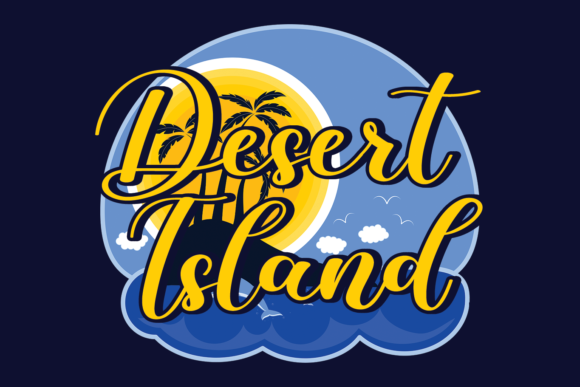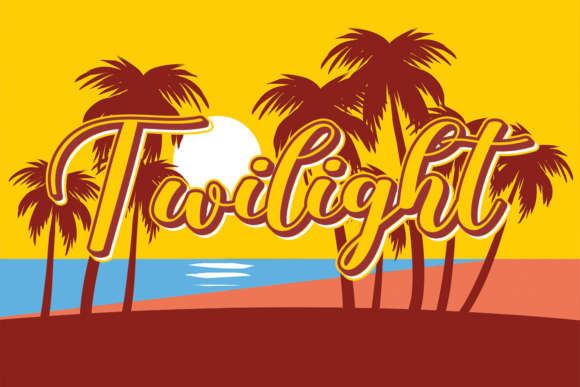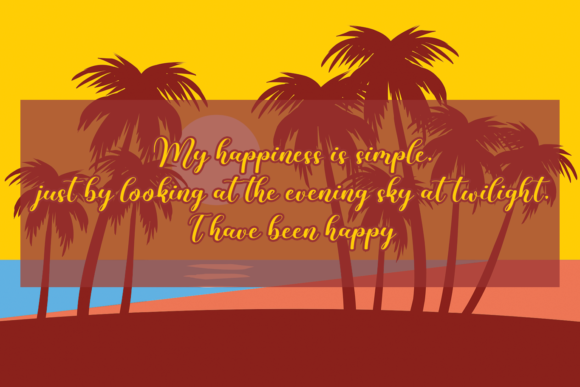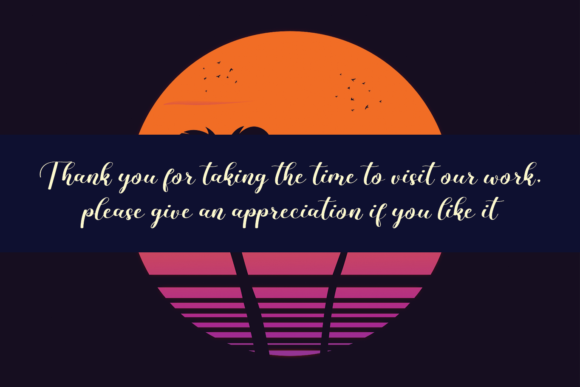
Summer Vibes Font
About Summer Vibes Font
Summer Vibes is a retro and flowing script font that exudes trendiness and versatility. This font was particularly crafted for those who need a beautiful and chic look to their designs.